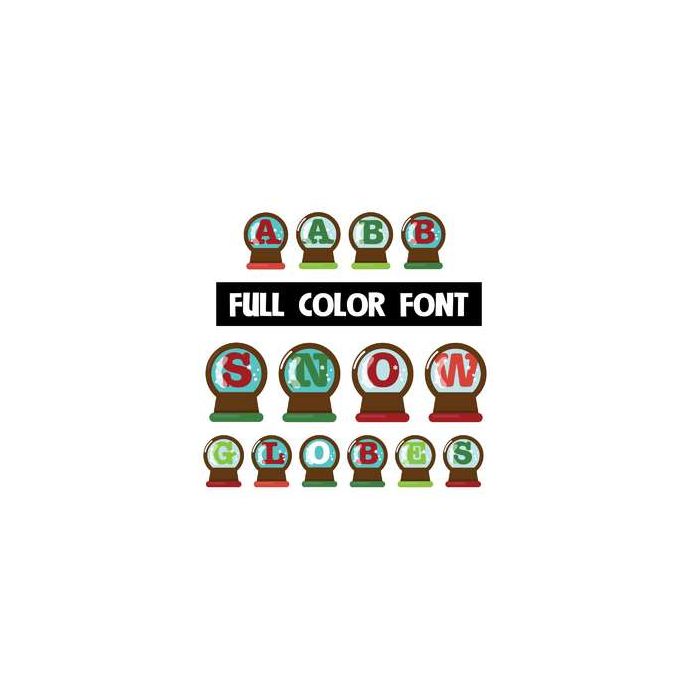
This full-color font features letters inside snow globes. This font works best for titles, displays, posters and more. Please note color fonts will show as black in non compatible programs. This font type is compatible with Silhouette Studio.